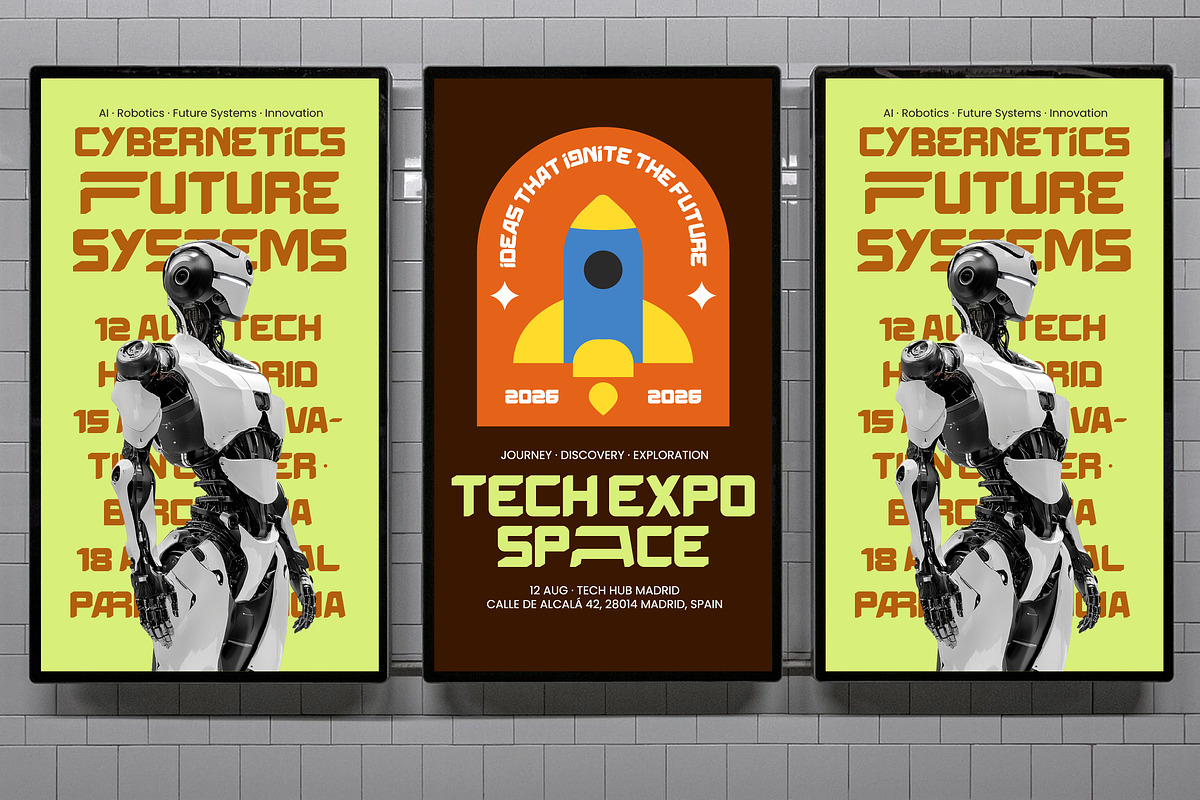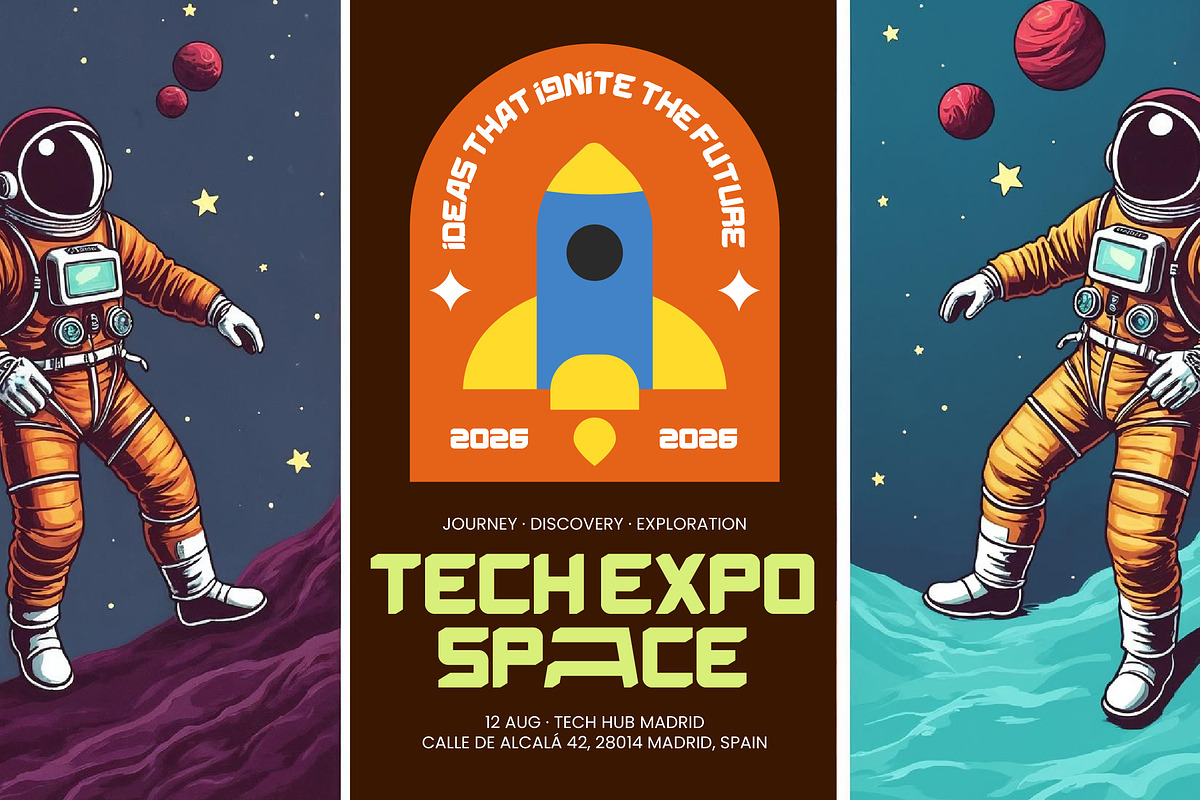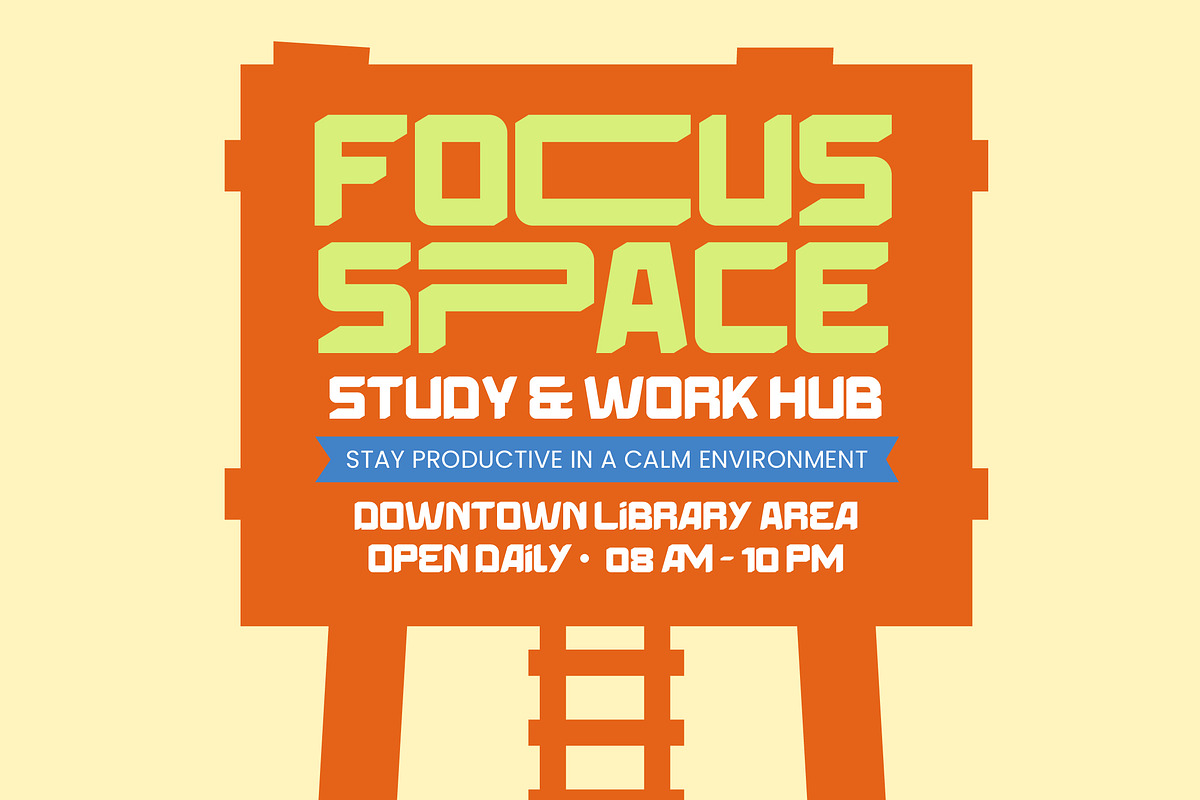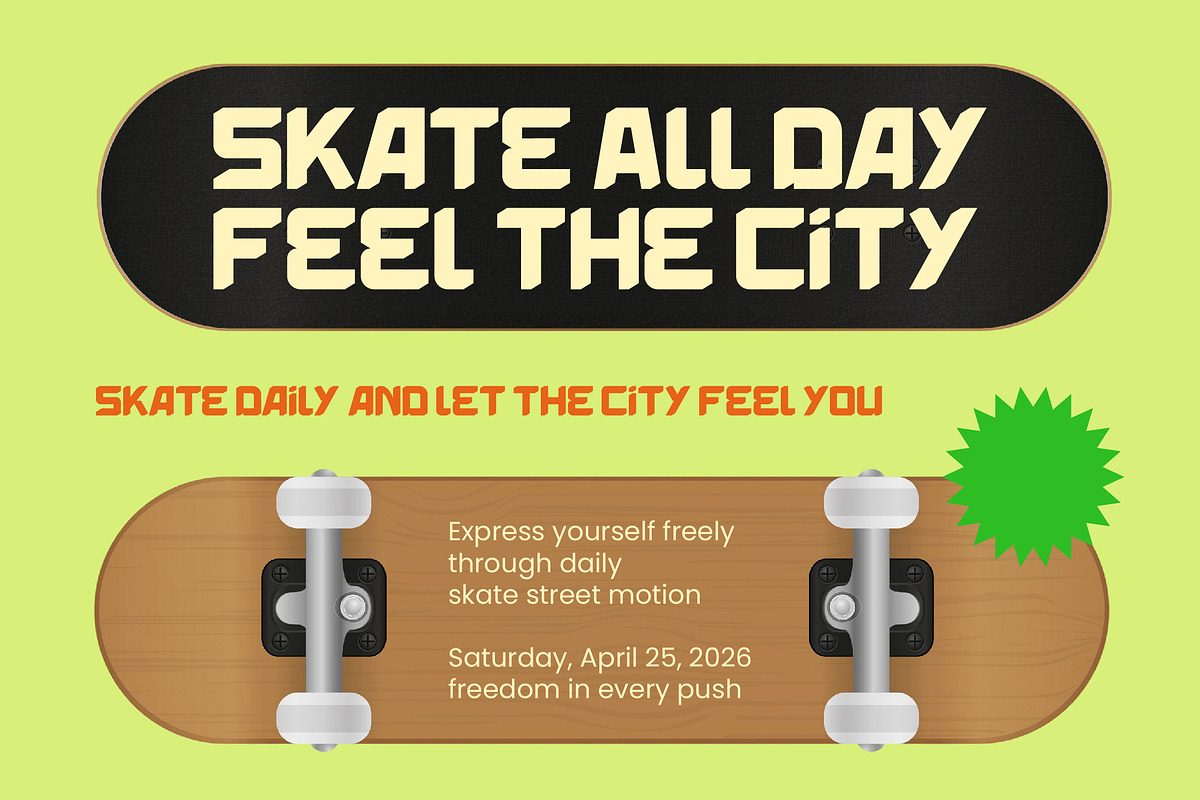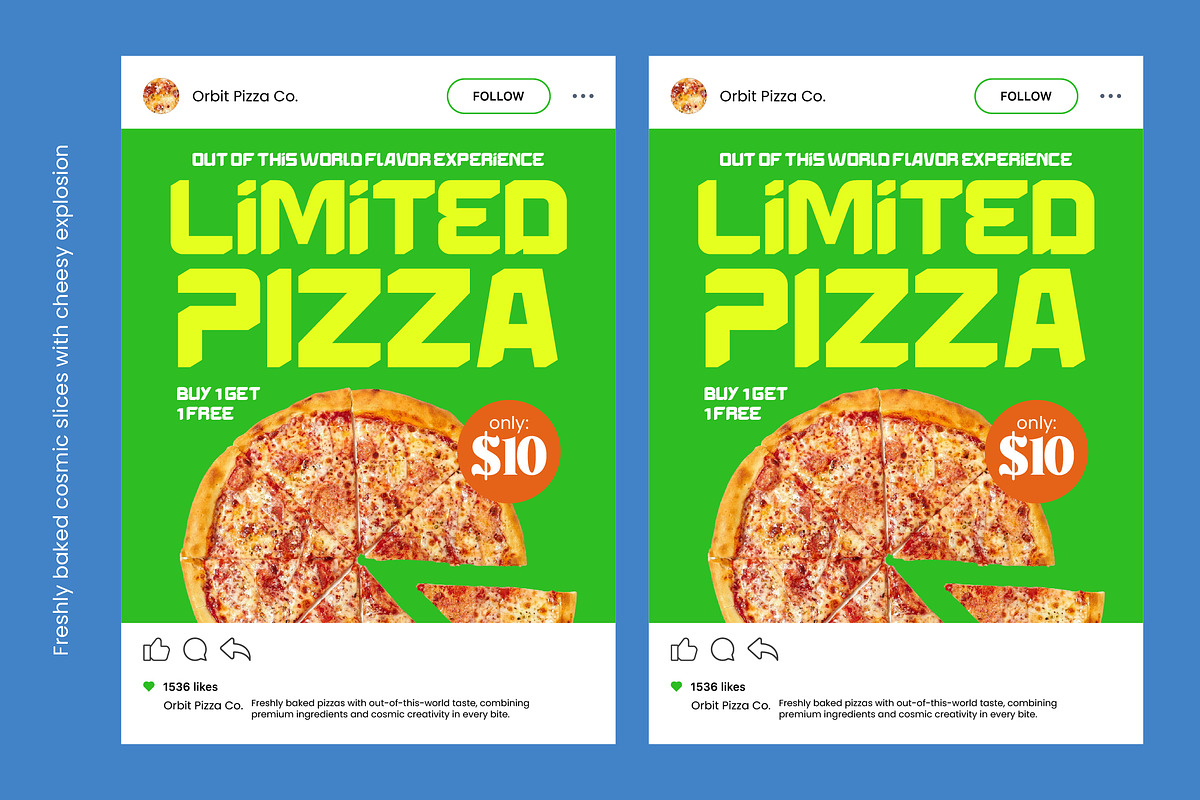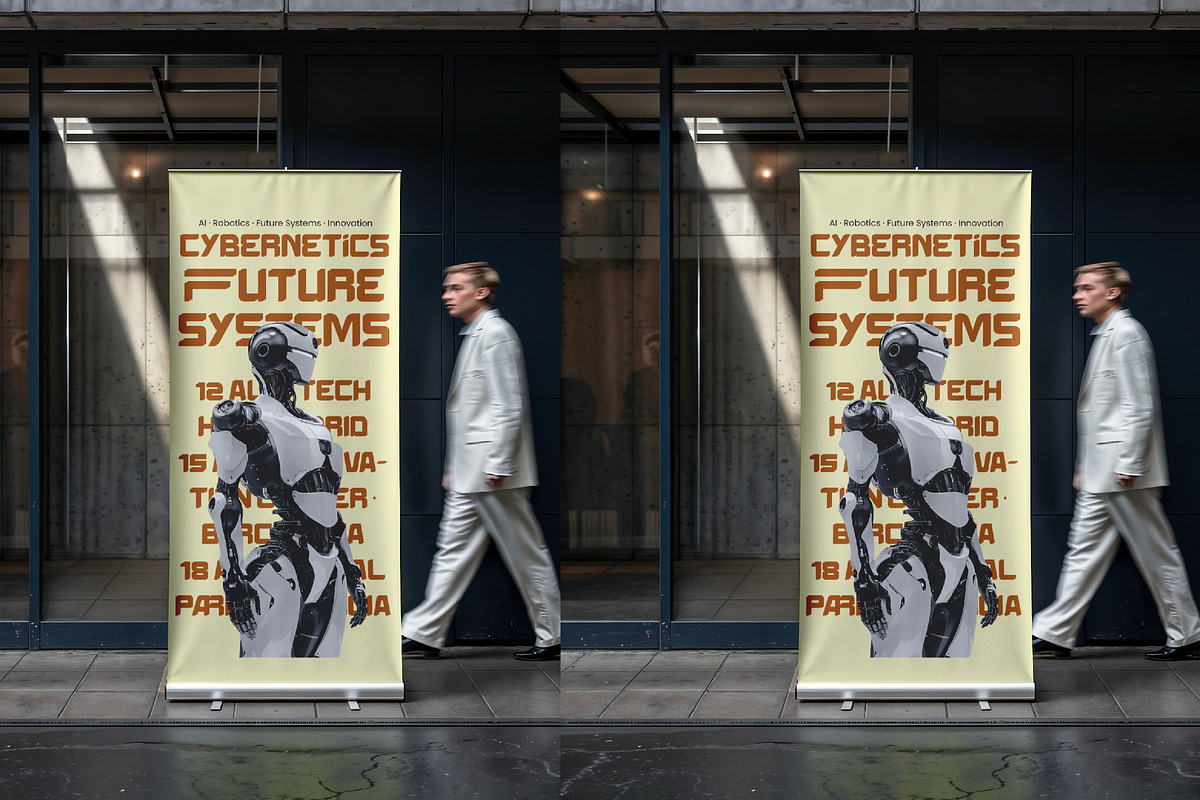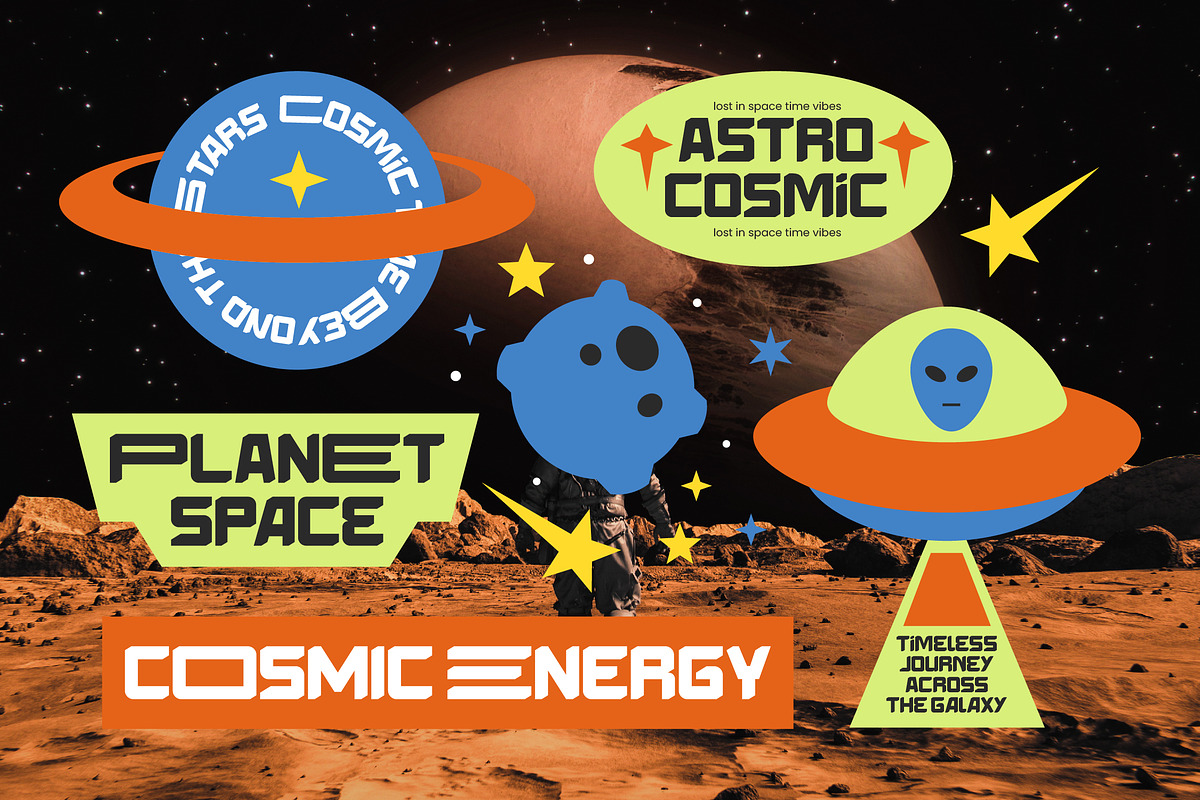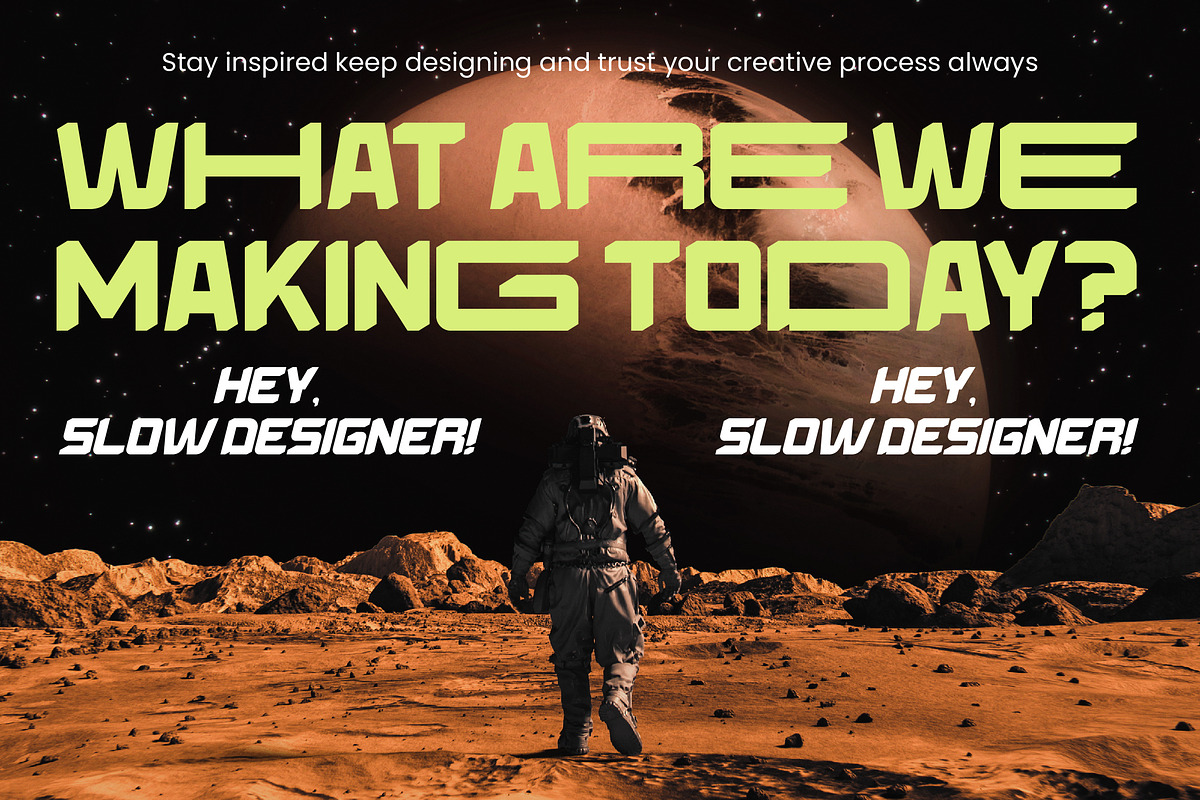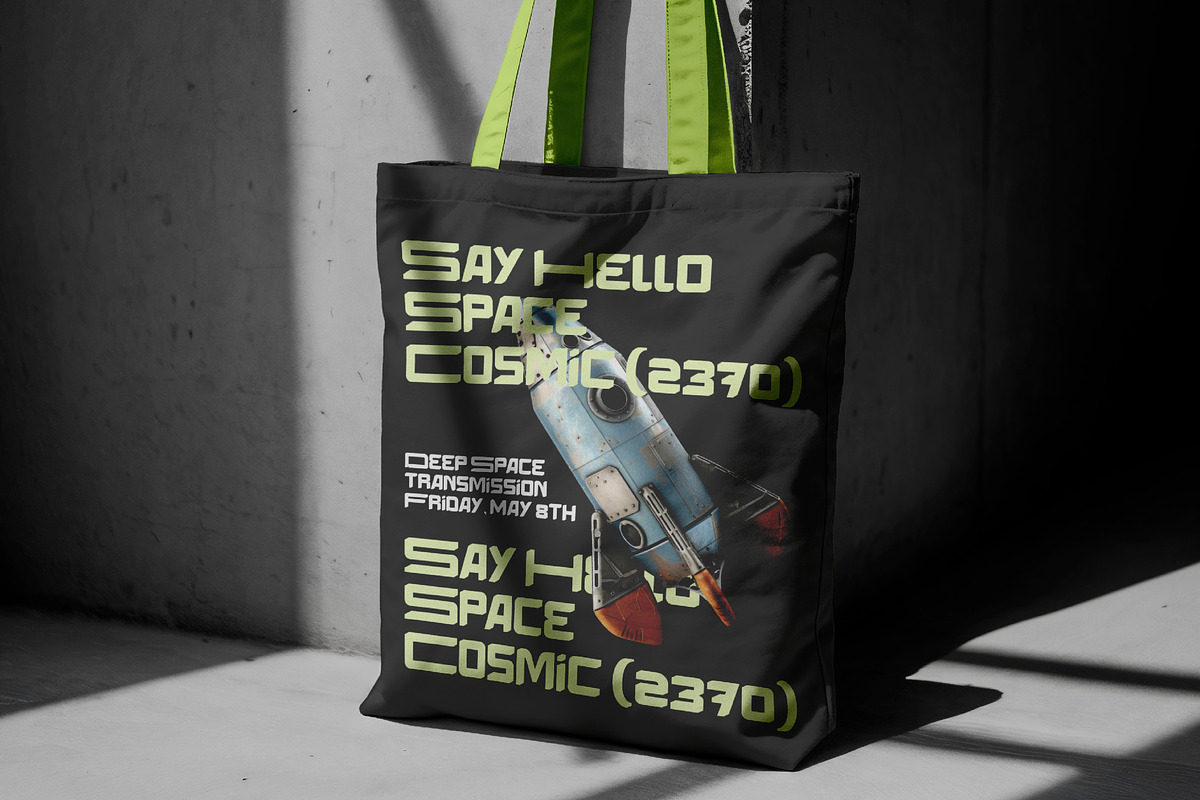
Energy Space Futuristic Display Sans
Energy Space - Futuristic Display Typeface , Unleash the power of the cosmos with Energy Space - Futuristic Display Typeface, a font designed to command attention and define the next generation of visual communication. This bold geometric structure is infused with a modern sci-fi aesthetic, delivering a powerful visual impact that feels both grounded and experimental. Every character in Energy Space - Futuristic Display Typeface is meticulously crafted to convey a sense of high-speed motion and digital innovation, ensuring your headlines stand out with unrivaled clarity and authoritative style.
Engineered for professional flexibility, this typeface offers a comprehensive suite of 14 unique ligatures and 32 stylistic alternates that allow for endless customization. With its extensive multilingual support, Energy Space - Futuristic Display Typeface adapts seamlessly across global markets, making it incredibly versatile for international projects. Whether you are working on a high-profile startup launch or a global marketing campaign, Energy Space - Futuristic Display Typeface provides the technical depth required for consistent brand messaging across all platforms.
Transform ordinary layouts into extraordinary experiences through strategic application in luxury branding, high-tech packaging, and editorial design. Energy Space - Futuristic Display Typeface is the perfect typography solution for movie posters, gaming interfaces, and cutting-edge advertising where a strong, forward-thinking identity is paramount. Its expansive horizontal weight and dynamic angles make it ideal for large-scale displays, automotive branding, and premium streetwear labels seeking a modern edge.